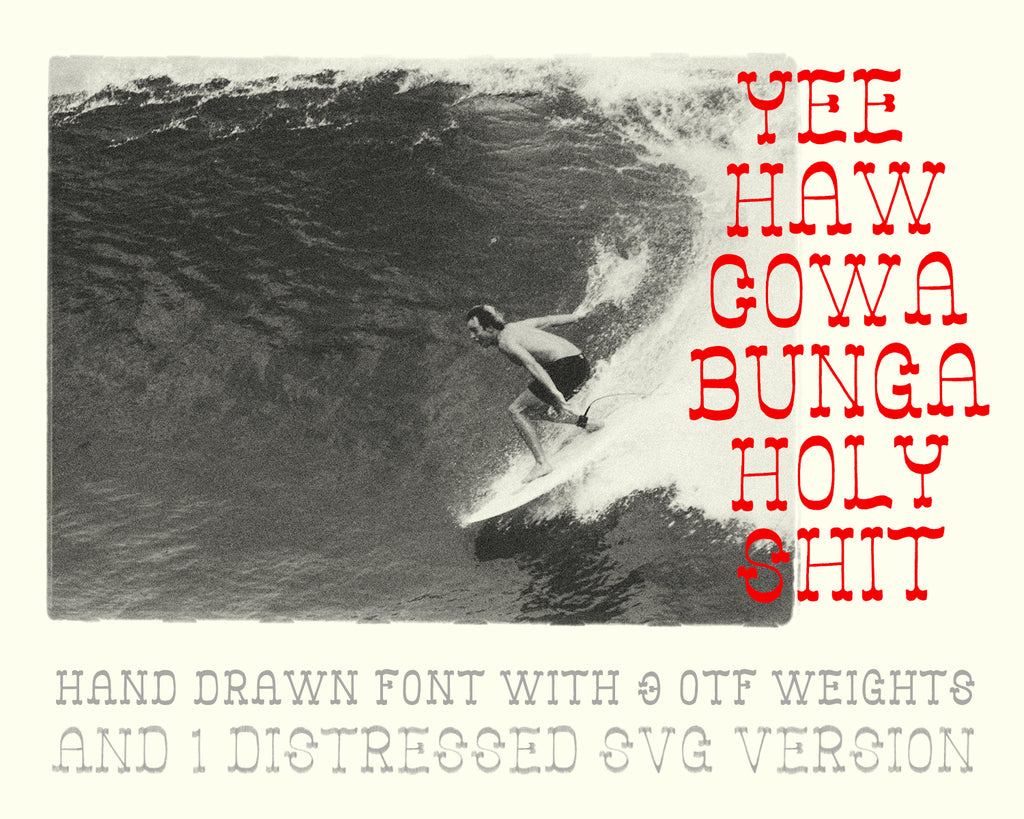
The newest addition to my Hand Drawn Font offering is "Yeehaw Cowabunga Holy Shit", a hand drawn font. This OTF and SVG font is inspired by southwestern characters, executed in the loose hand drawn style.
Yeehaw Cowabunga Holy Shit Regular, Medium and Bold are vector OTF fonts that are infinitely scalable. They possesses the nuance of a hand lettered font, while working just like any other font in your font library.
The Distressed version of Yeehaw Cowabunga Holy Shit is an SVG font. These fonts are taken straight from the hand drawn letters and work great in Adobe programs. Adobe photoshop is ideal for coloring SVG fonts with adjustment layers.